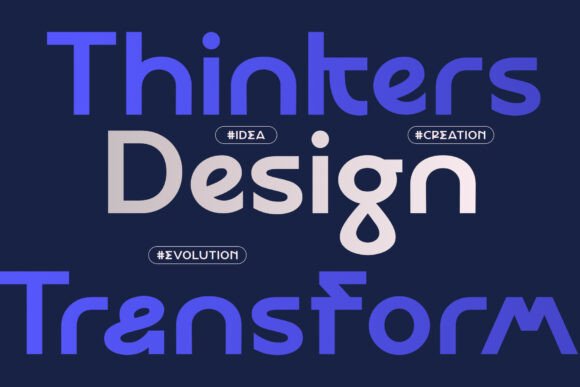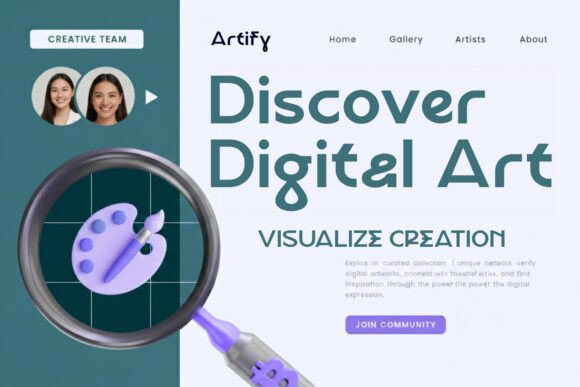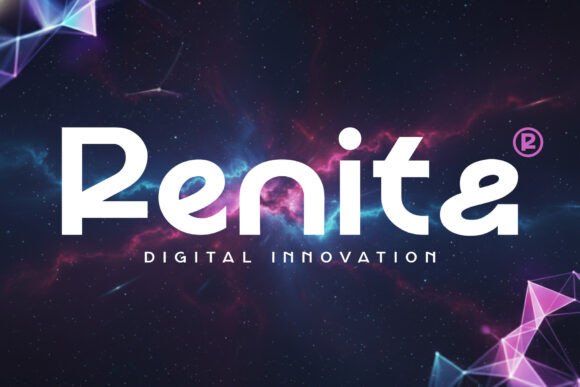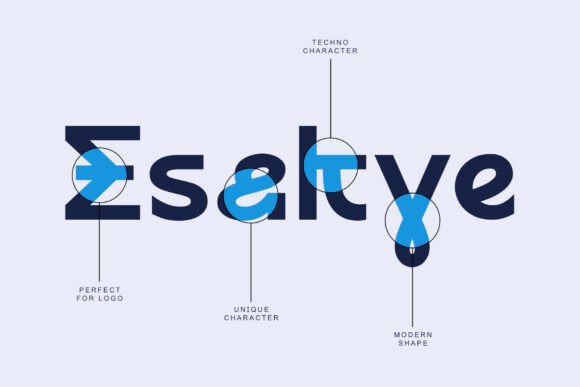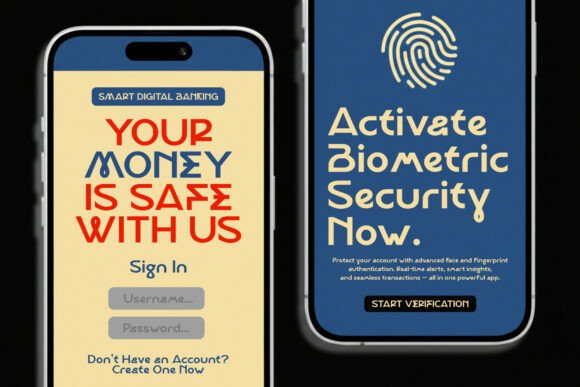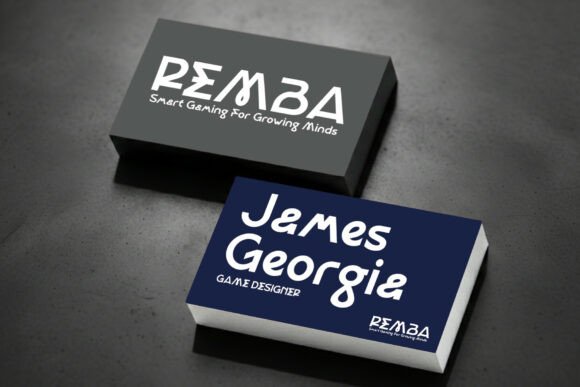
Gakys Font: Elevate Your Brand with a Modern Corporate Logo
In the world of branding and corporate identity, typography plays a crucial role in conveying a company’s values, mission, and overall aesthetic. A well-designed font can make all the difference in establishing a strong visual presence and setting your brand apart from the competition. This is where Gakys Font comes in – a modern corporate logo font designed to deliver a clean, confident, and professional identity.
What Makes Gakys Font Stand Out?
Gakys Font boasts a range of features that make it an ideal choice for brands looking to elevate their visual identity. Some of its key characteristics include:
• Smooth Geometric Curves: Gakys features smooth, flowing curves that add a touch of sophistication and elegance to any brand identity.
• Balanced Proportions: The font’s carefully crafted proportions ensure that each letterform is harmonious and visually appealing, creating a strong foundation for any logo or branding material.
• Distinctive Letterforms: Gakys’ unique letterforms set it apart from more traditional fonts, providing a distinctive and memorable visual identity for brands.
The Benefits of Using Gakys Font
Gakys Font offers a range of benefits for brands looking to establish a strong visual presence. Some of the key advantages of using Gakys include:
• Professionalism: Gakys’ clean, confident, and modern design makes it perfect for brands looking to project a professional image.
• Elegance: The font’s smooth curves and balanced proportions add a touch of elegance to any brand identity, making it ideal for premium services and high-end brands.
• Versatility: Gakys Font is highly versatile, performing beautifully in both large-scale logo applications and refined branding materials.
Who Can Benefit from Gakys Font?
Gakys Font is perfectly suited for a wide range of brands and industries, including:
• Corporate Logos: Gakys’ modern and professional design makes it an ideal choice for corporate logos and branding materials.
• Technology Companies: The font’s clean and futuristic aesthetic makes it perfect for technology companies and startups looking to establish a strong visual identity.
• Financial Institutions: Gakys’ elegant and sophisticated design makes it suitable for financial institutions and premium services.
• Startups: The font’s modern and forward-thinking aesthetic makes it an excellent choice for startups looking to establish a strong brand identity.
Why Choose Gakys Font?
With so many fonts available, why choose Gakys Font for your brand identity? Here are just a few reasons:
• Timeless Style: Gakys Font boasts a timeless style that will remain relevant for years to come, ensuring your brand stays ahead of the curve.
• Unique Details: The font’s subtle unique details add a touch of sophistication and elegance to any brand identity.
• High-Quality Design: Gakys Font is designed to the highest standards, ensuring a crisp and clean appearance in any application.
In conclusion, Gakys Font is an exceptional choice for brands looking to establish a strong visual presence and elevate their corporate identity. With its modern design, smooth geometric curves, and balanced proportions, Gakys Font is perfect for brands that want to appear trustworthy, modern, and forward-thinking. Whether you’re a technology company, financial institution, or startup, Gakys Font is an excellent choice for any brand looking to make a lasting impression.